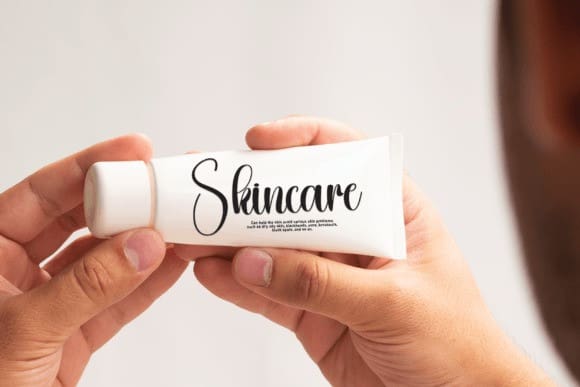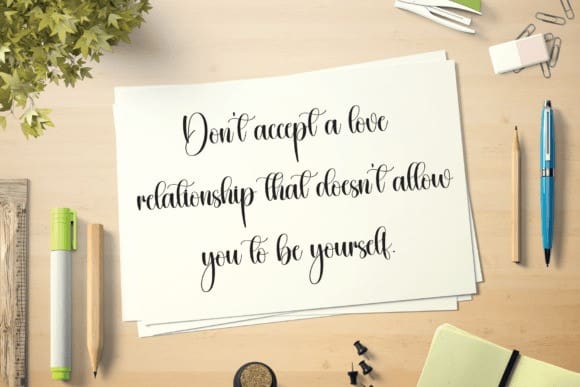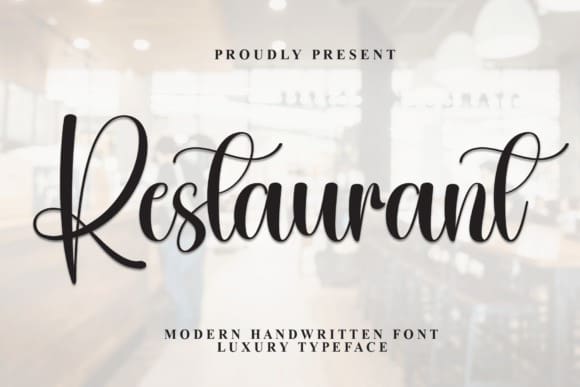
Restaurant Script Font
Restaurant Script Font is a stylish and incredibly elegant script font. It looks stunning on wedding invitations, thank you cards, quotes, greeting cards, logos, business cards and every other design which needs a handwritten touch.